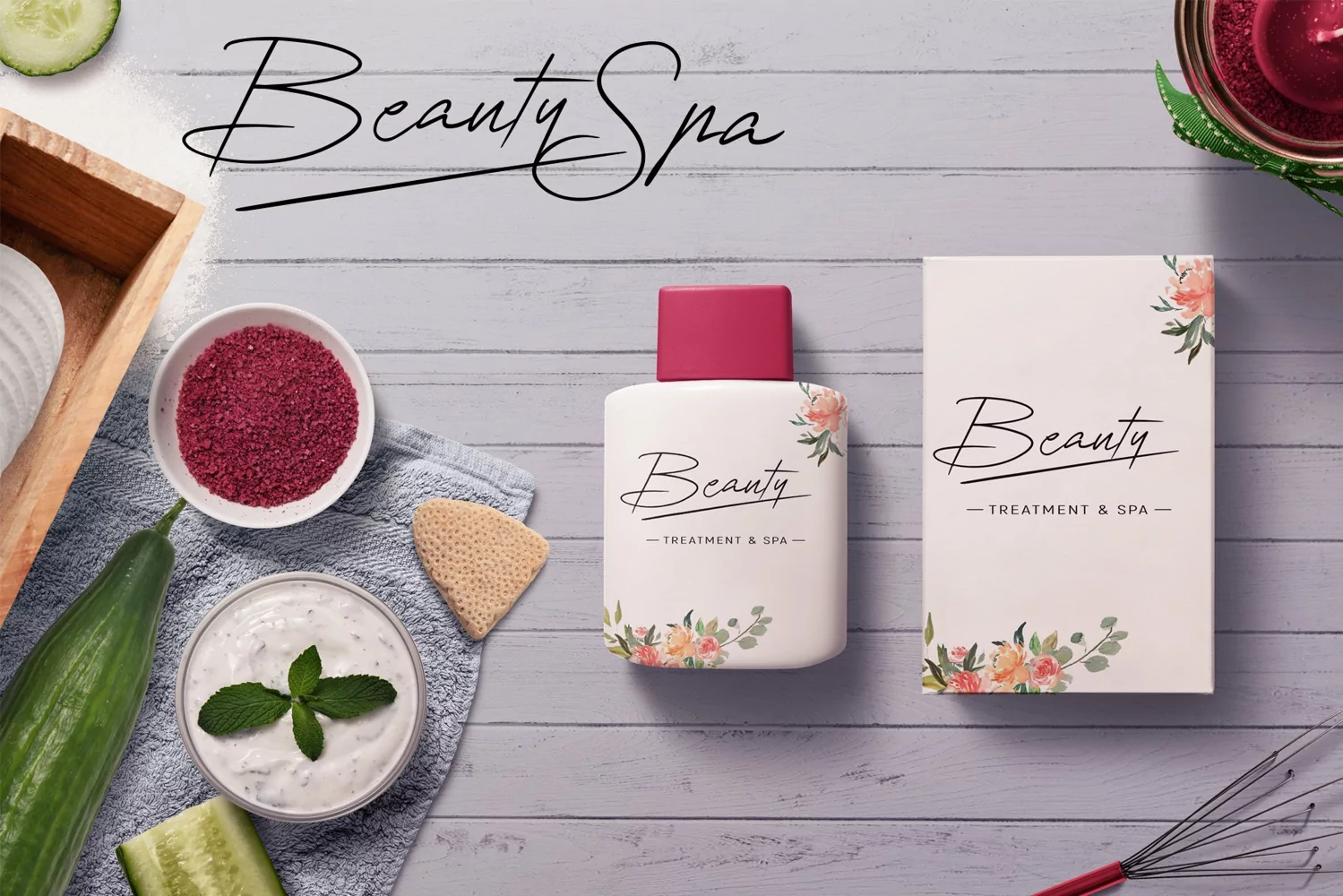
-- Elegant / Original / Hand Writing --Romansa is a signature script font. Inspired by some beauty logo signature, we try to combine it with a elegance concept. it's perfect for you to show your design or product in professional way.
USERomansa works great in any branding, logos, magazines, banner, poster, flyer, and even packaging stuff.